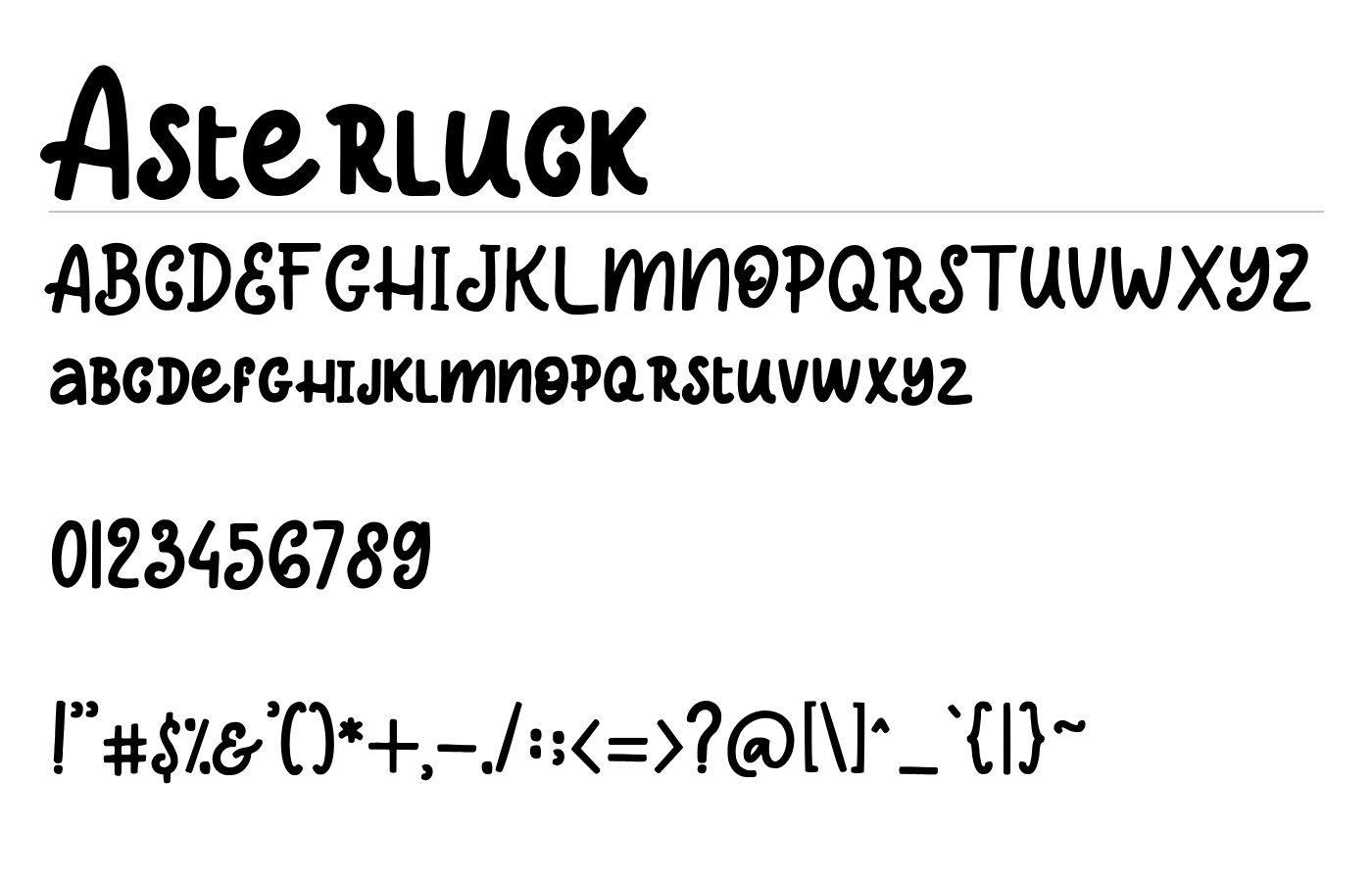
Asterluck is a playful and casual handwritten font with a rounded, friendly appearance and medium weight. Its quirky, slightly irregular letterforms and generous spacing give it a warm, approachable personality, making it ideal for informal, fun designs such as children’s books, creative branding, or casual invitations. With its clear legibility and unique charm, Asterluck works well in headlines and display uses where a personal, cheerful touch is desired.
Asterluck Font